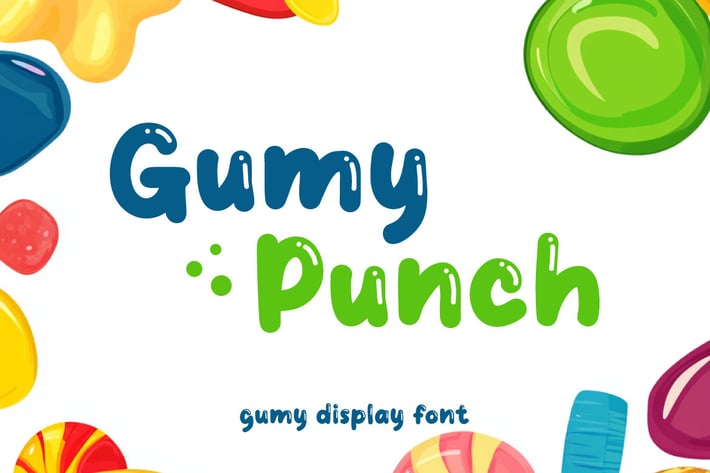
Gumy Punch - Display Font
Add a playful punch to your designs with Gumy Punch, a fun and bouncy display font inspired by gummy candies! Its thick, rounded letters and bold shapes bring a deliciously sweet and energetic vibe to any project, making it perfect for children’s books, food packaging, playful branding, posters, and more. Each character has a soft, stretchy feel that mimics the look of real gummies, adding a touch of fun and creativity to your work.